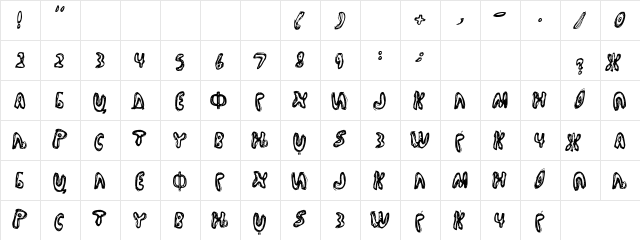
X_Outlaw Normal
Design Context for X_Outlaw Typeface
X_Outlaw is a composed and adaptable typeface that performs quietly and consistently across a wide range of design contexts.